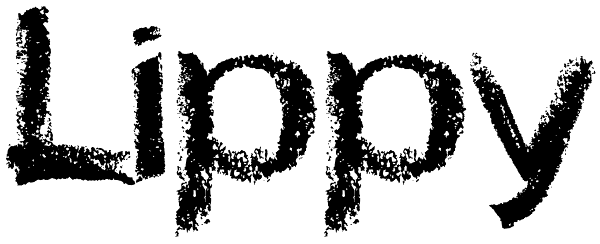
Lippy
Lippy is designed to give a 100% lipstick feel. The reason the lipstick feel is so authentic is because the original sketches were actually drawn in lipstick, taken into illustrator, retraced and then edited carefully in Fontlab. If you're after a...